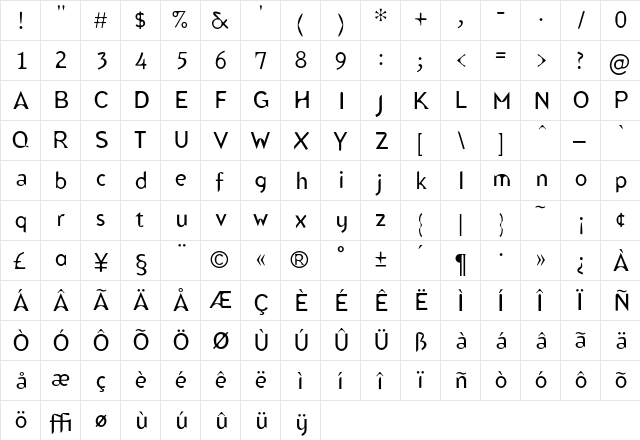
Blindfish Light
Design Context for Blindfish Typeface
Blindfish takes a measured approach to typography — its balanced proportions and neutral character make it a reliable workhorse for both digital and print work. Its slender proportions lend an understated elegance to any composition.